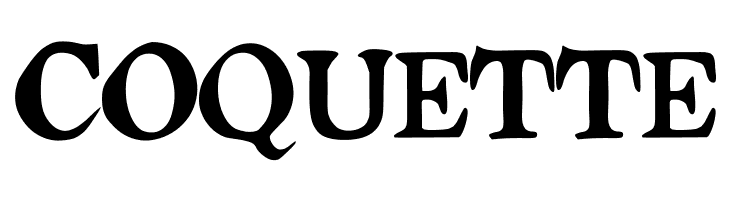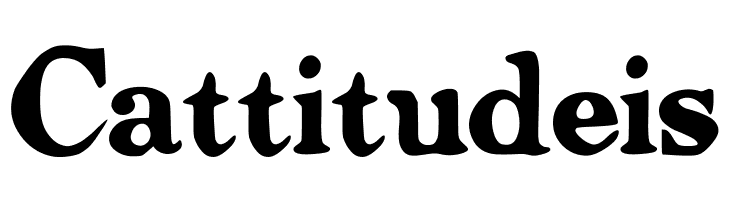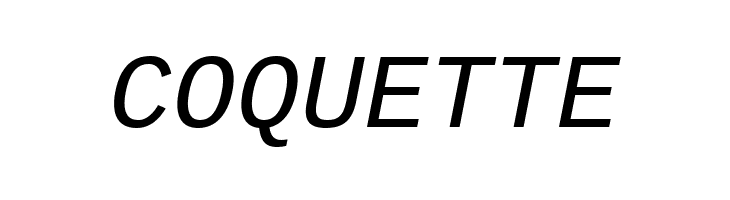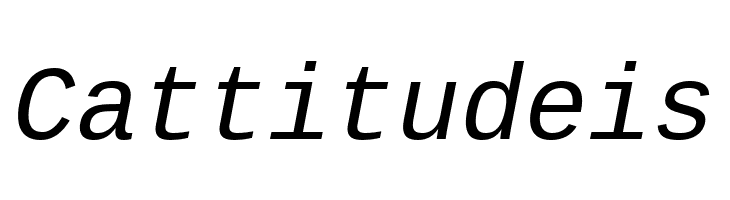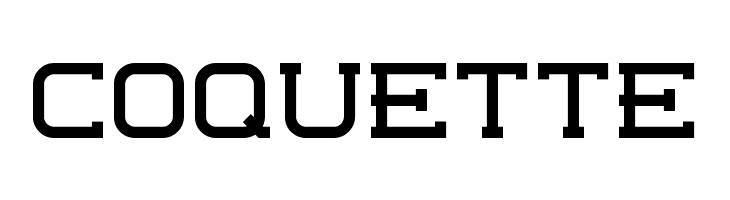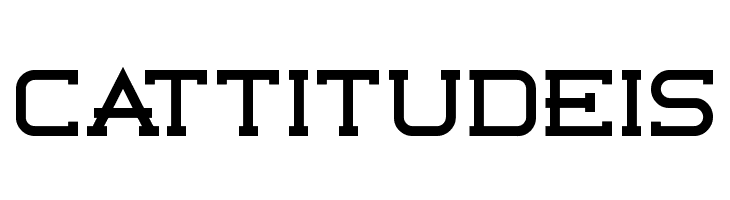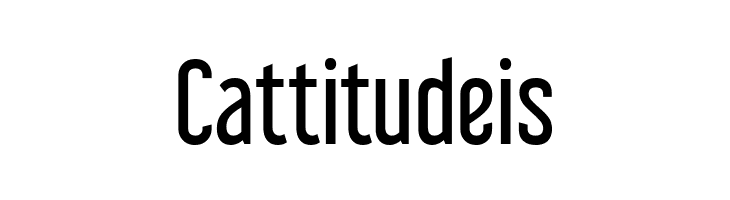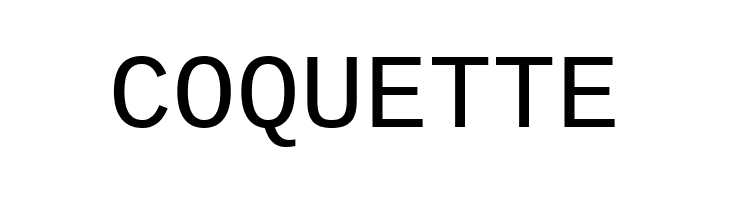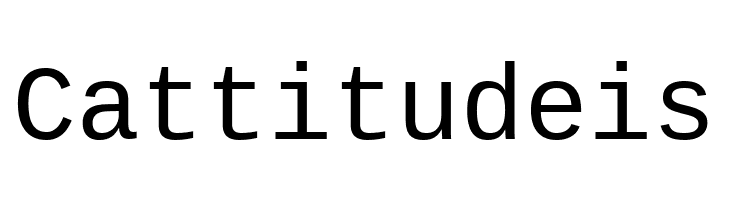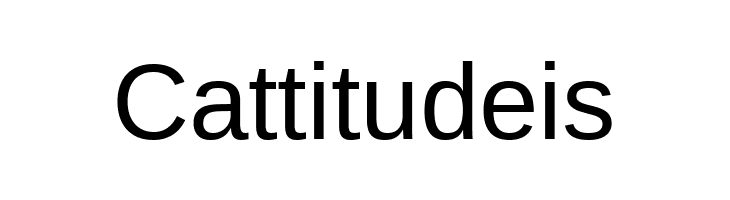
A bold, outlined font with a modern, industrial style.
A bold, decorative font with a modern, geometric style.
A bold, 3D geometric font with a shadow effect, perfect for impactful designs.
A playful, handwritten font with thin, irregular strokes and a casual style.
A bold, geometric font with high contrast and strong visual impact.
A bold, serif font with high contrast and a classic, robust style.
A dynamic and elegant script font with fluid, connected letterforms.
A modern, geometric sans-serif font with clean lines and balanced spacing.
A playful, casual script font with a handwritten style.
A bold, modern typeface with tall, narrow characters and a clean, sans-serif design.
A modern, tall, and narrow sans-serif font with a clean and professional look.
A modern, narrow sans-serif font with consistent stroke widths.
A playful, rounded font with smooth curves and consistent stroke width.
A monospaced, italic font with a modern and clean design.
A monospaced font with uniform character width, ideal for coding and tabular data.
A clean, modern sans-serif typeface with balanced proportions and versatile applications.
A classic serif font with balanced readability and modern appeal.
A bold, geometric font with a modern and industrial aesthetic.